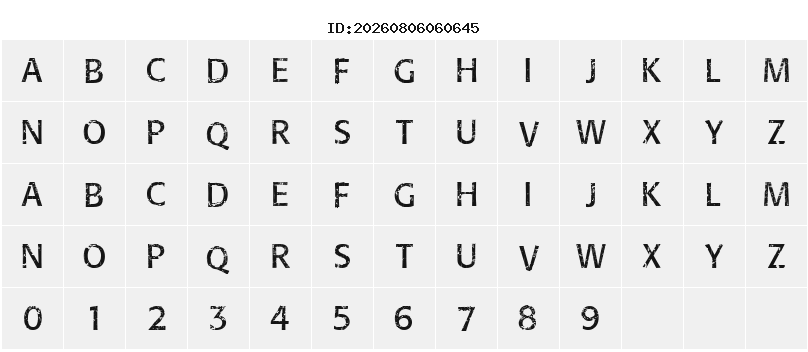
• Font Name: Overhaul
• Full Font Name: Overhaul
About Overhaul.ttf
Overhaul.ttf is a modern, elegant sans-serif font designed for ultimate readability and visual harmony. Perfect for branding, headlines, web design, and print materials.